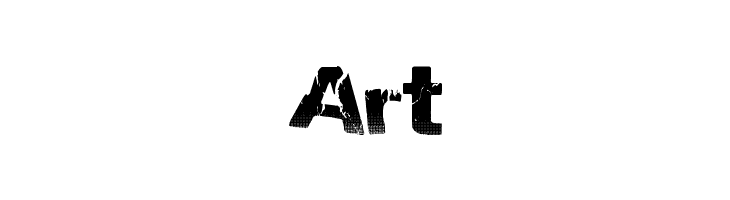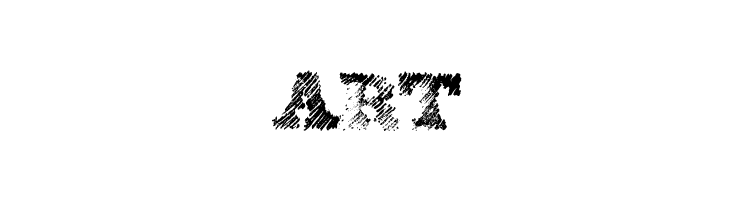
A playful, bold handwritten font with rounded, irregular shapes.
A bold, decorative font with zebra stripe patterns filling each character.
A bold, textured font with a zebra-like pattern, perfect for eye-catching designs.
A bold, playful font with a three-dimensional outline, perfect for decorative uses.
A bold, textured font with a hand-drawn, sketch-like appearance.
A jagged, edgy font with sharp, irregular edges for a dynamic look.
A playful, textured font with zipper-like edges and rounded, irregular characters.
A bold, hand-painted style font with dynamic, textured strokes.
A bold, block-like font with strong geometric shapes and an impactful presence.
A bold, jagged font with a distressed, scratch-like appearance.
A rugged, distressed font with a horror-themed aesthetic.
A spooky, stitched-style font ideal for horror themes.
A bold, brush-stroke font with a raw, energetic style.